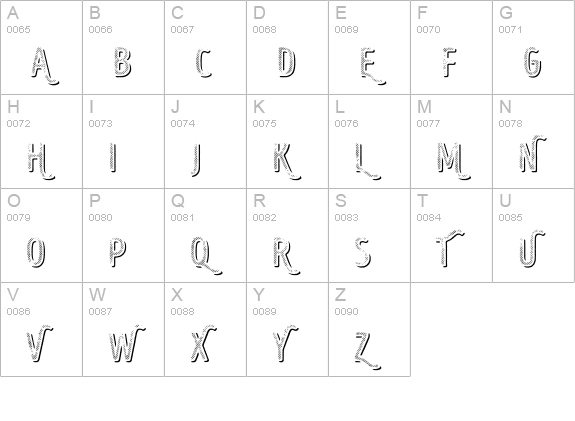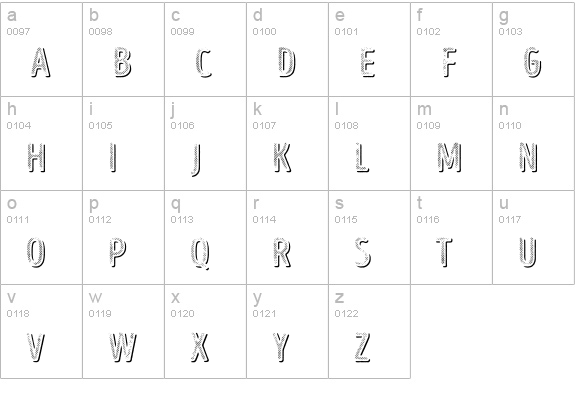
Intro Head B UC L Shade Font Details
Intro Head B UC L Shade font is a bold and eye-catching display typeface that exudes a modern and futuristic vibe. With its unique uppercase characters and intricate shading details, this font is perfect for creating impactful headings and titles. The font is available for free download at FontsMarket.com, making it easily accessible for designers and creatives looking to add a dynamic touch to their projects. Whether you're designing posters, logos, or website headers, Intro Head B UC L Shade font is sure to make a statement with its striking appearance and versatility. Let your creativity shine with this remarkable font that is both stylish and free to use.